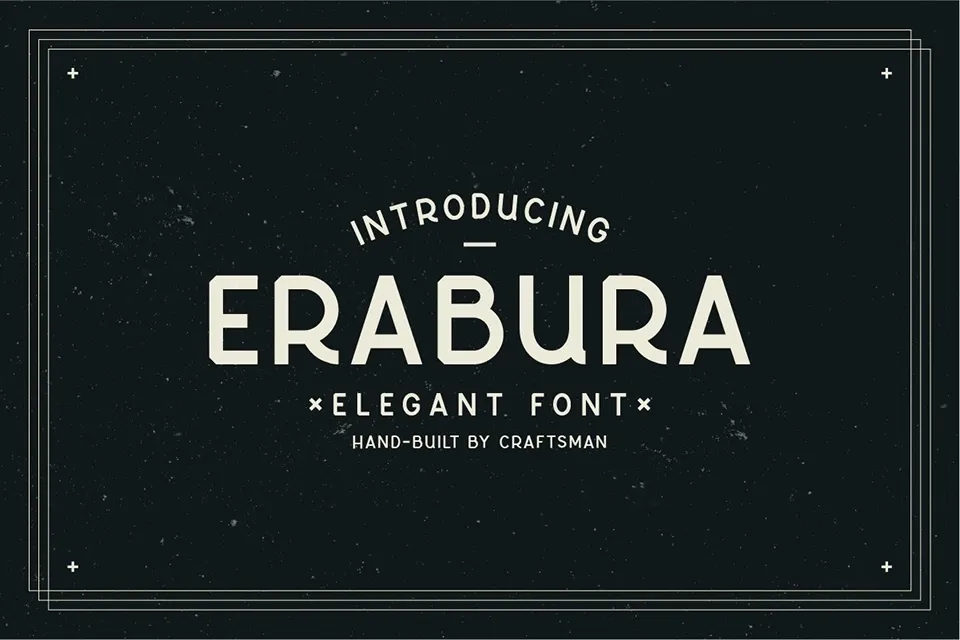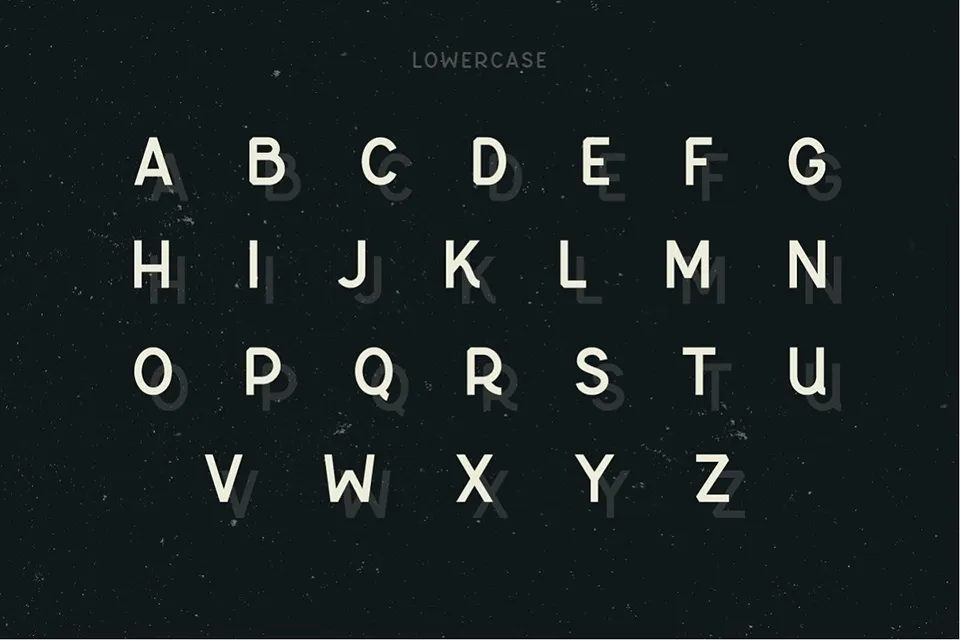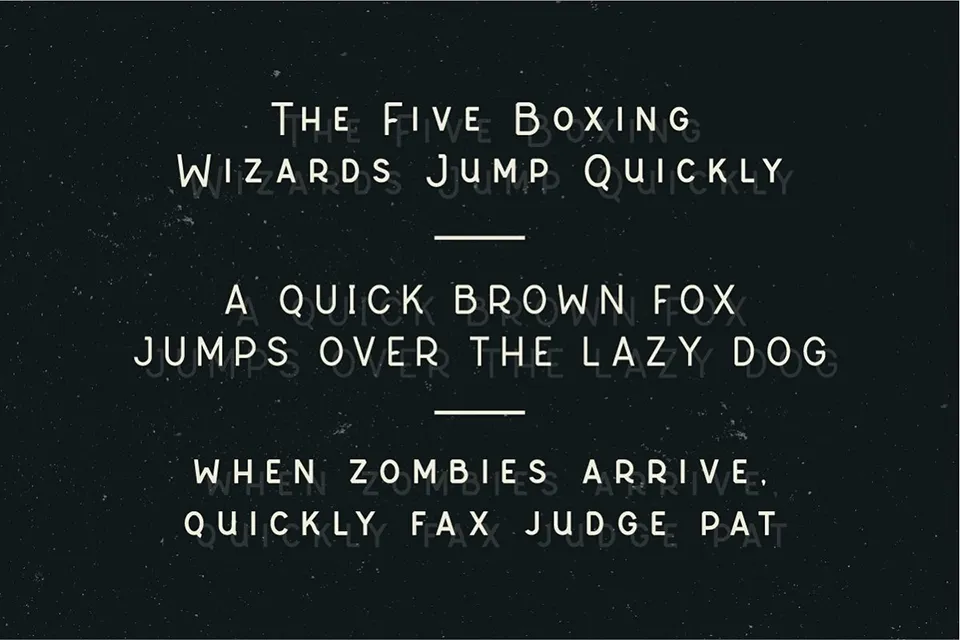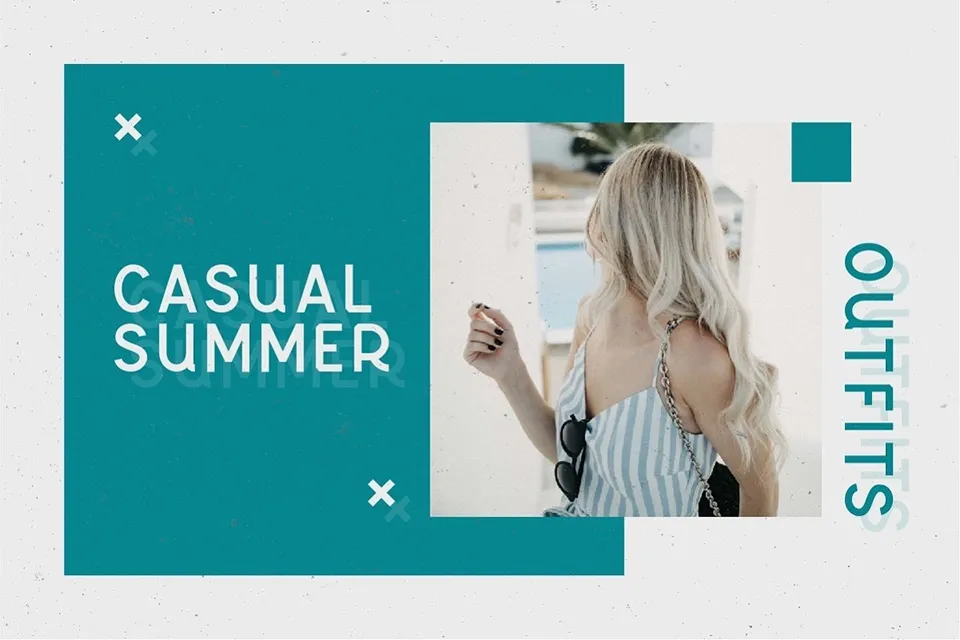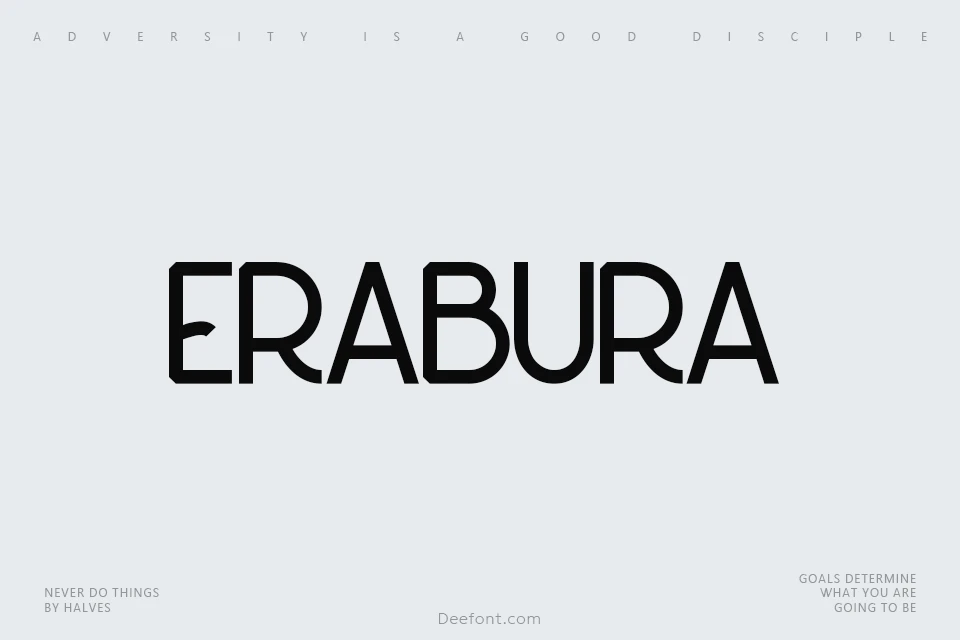
Erabura Font
Erabura Font is an elegant and modern sans-serif typeface characterized by its clean geometric lines and minimalist aesthetic. This versatile typeface features uniform width characters that create a structured, timeless appearance. The font family includes uppercase, lowercase, numbers, and punctuation marks, making it highly versatile for various design applications. Particularly well-suited for brand logos, badges, clothing design, and modern branding, Erabura combines simplicity with sophistication. While available for personal use, its straightforward yet distinctive design makes it an excellent choice for creating impactful typography in contemporary design projects. The font’s balanced proportions and clean execution ensure readability while maintaining a unique visual identity.